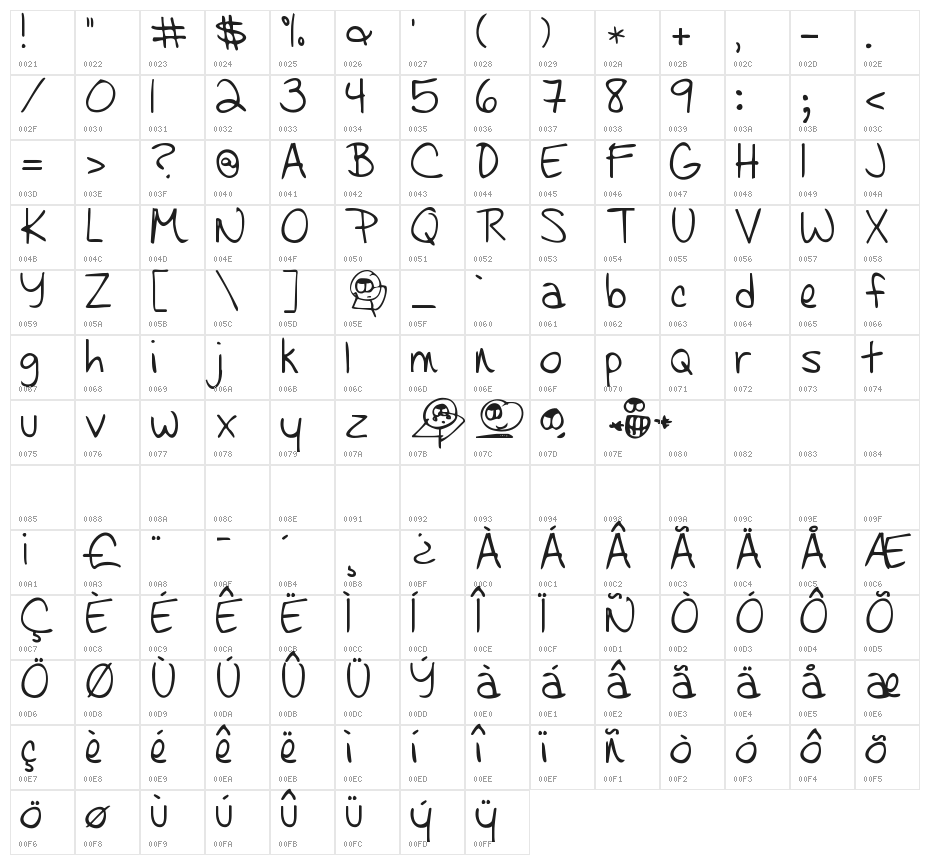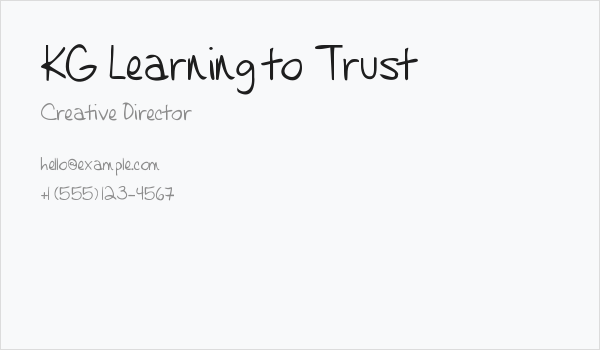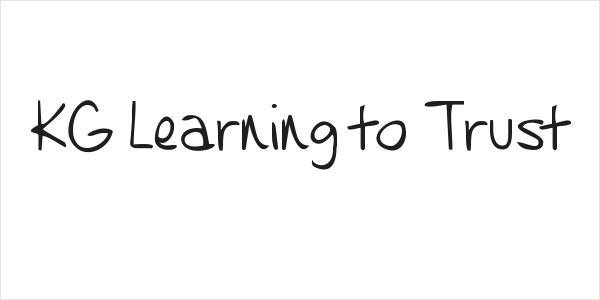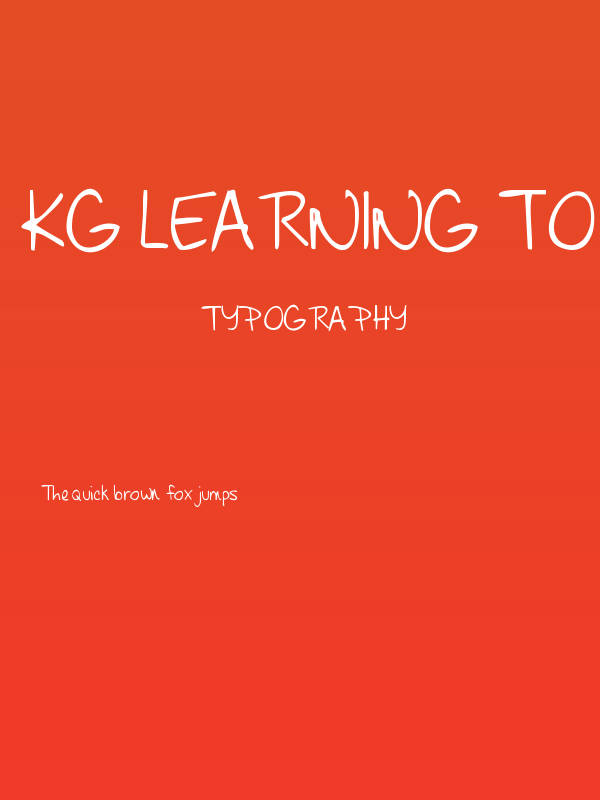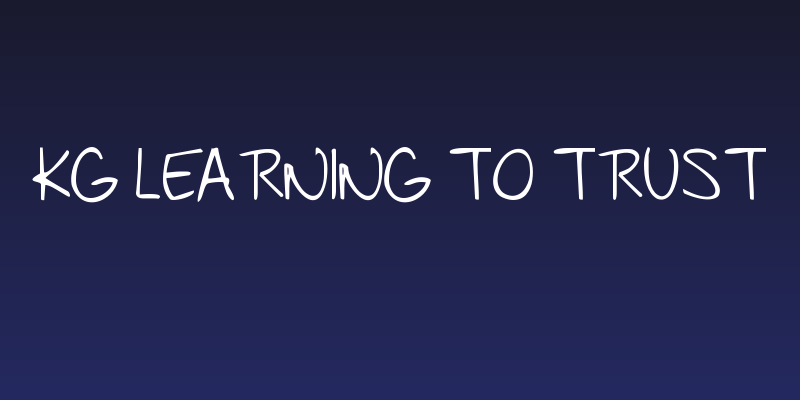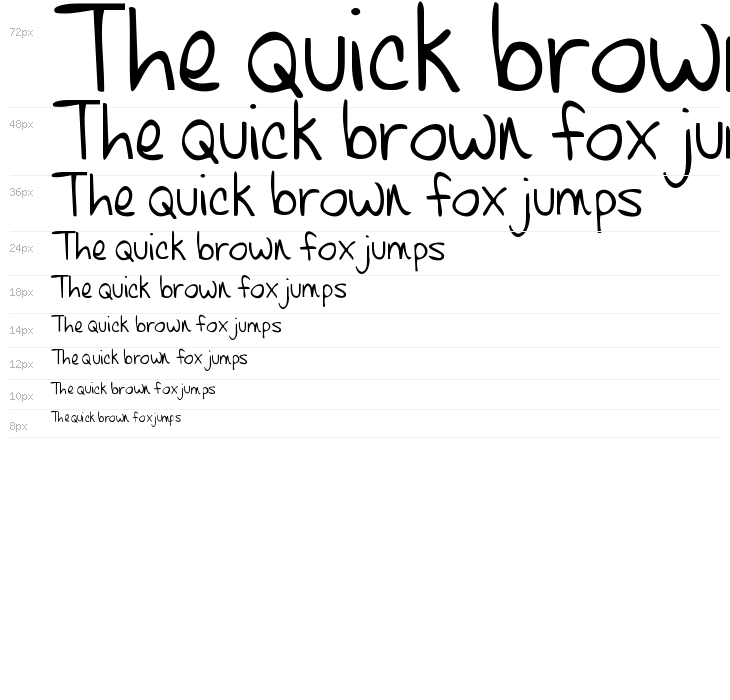
KG Learning to Trust Font
KG Learning to Trust Description
This playful and informal font features a handwritten style that exudes warmth and approachability. The characters are slightly irregular, mimicking the natural flow of handwriting, which adds a personal touch to any text. The strokes are smooth and rounded, giving the font a friendly and inviting appearance. The uppercase and lowercase letters are well-balanced, maintaining readability while adding a whimsical flair. The numbers and special characters are consistent with the overall style, ensuring a cohesive look across different types of content.
| Use Case | Headlines, Informal text, Branding |
| Proposed Projects | Ideal for children's books, educational materials, greeting cards, and informal branding projects. |